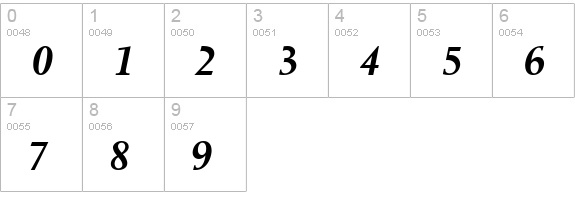
Cortex SSi Bold Italic Font Details
Cortex SSi Bold Italic is a strong, high-contrast, italic variant in the Cortex typeface family \xE2\x80\x94 well suited to headlines, attention-grabbing titles, and strong calls-to-action.
Cortex SSi Bold Italic font is a bold and dynamic typeface that exudes confidence and modernity. Its sharp edges and slanted italics add a sense of sophistication to any design project. This versatile font is perfect for branding, headlines, and any other creative endeavors that require a bold and eye-catching look. And the best part? Cortex SSi Bold Italic font is available for free download at FontsMarket.com. Whether you're a seasoned designer looking to add a new font to your collection or a beginner exploring the world of typography, this font is a must-have addition to your toolkit. Don't miss out on the opportunity to elevate your designs with the striking and impactful Cortex SSi Bold Italic font.